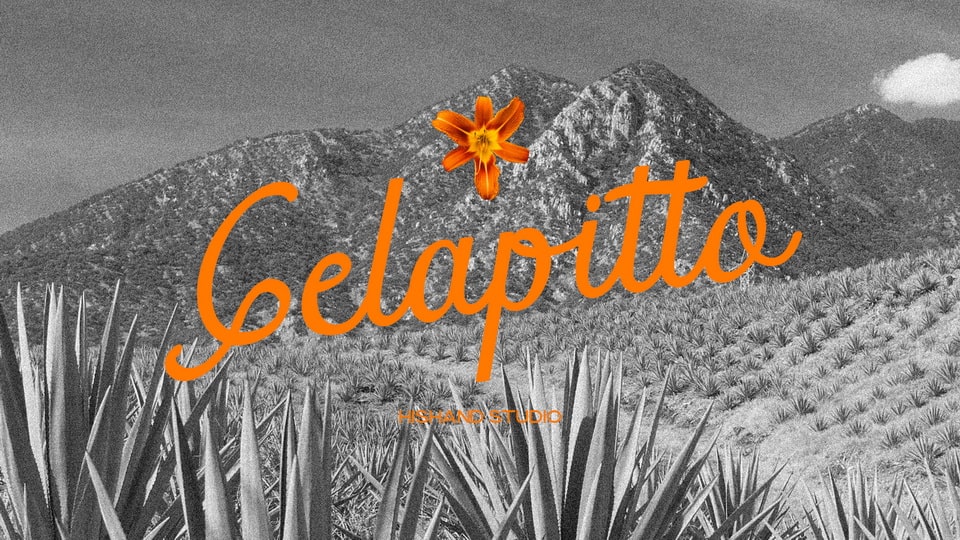
Download Gelapitto font, a charming handwritten script typeface that carries a warm, natural flow in every stroke. Its smooth curves and gentle loops create an inviting rhythm that feels expressive, and effortlessly stylish.